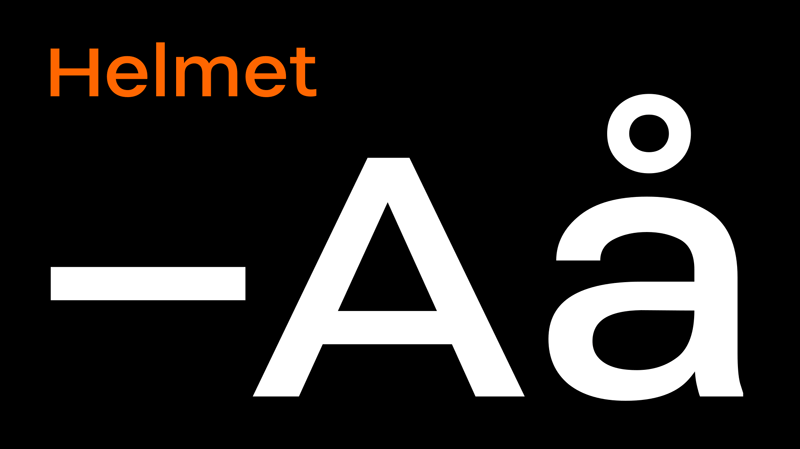
https://github.com/carlenlund/helmet Helmet is a neo-grotesque display typeface, currently with a single font. It takes inspiration from Swiss classics like Helvetica and Univers but plays with proportions such as width and x-height to create a unique look and feel. Licensed under the SIL Open Font License, the font is available for free both for personal and commercial use. |